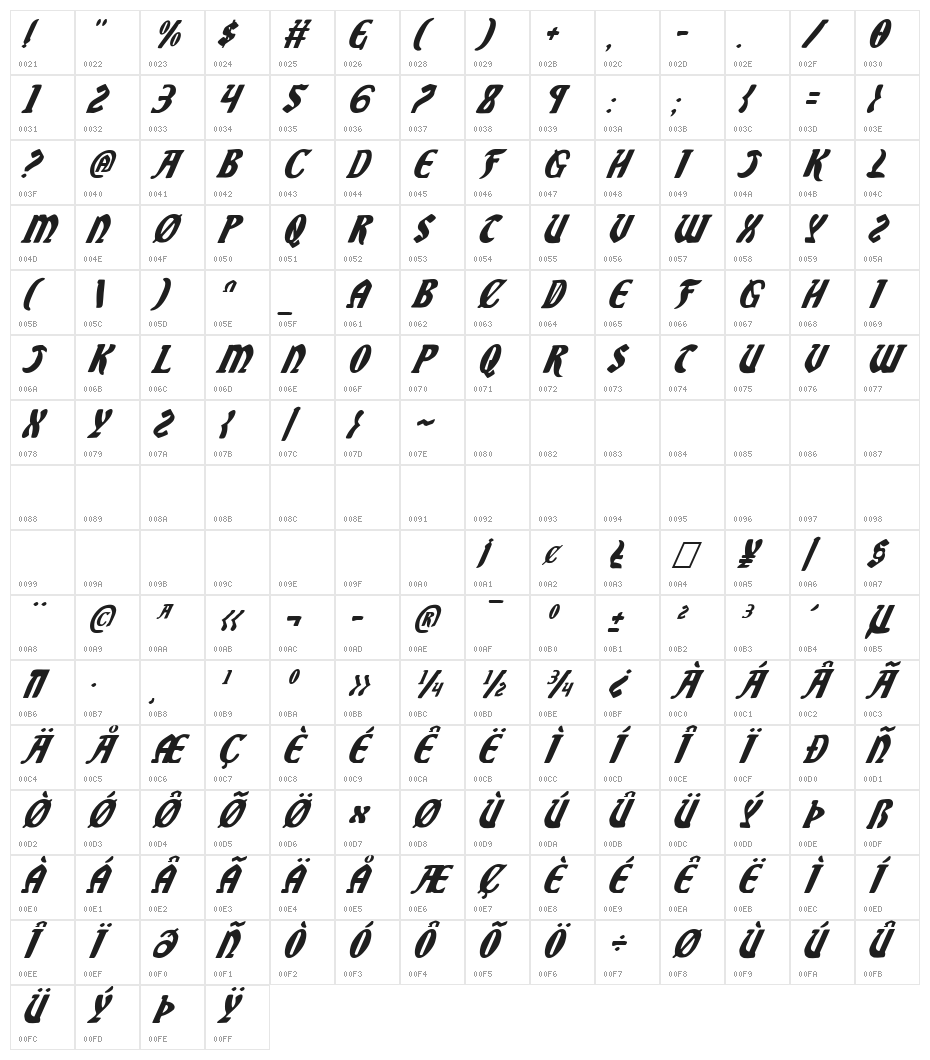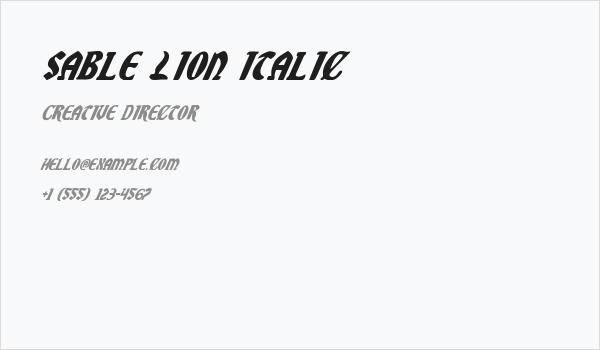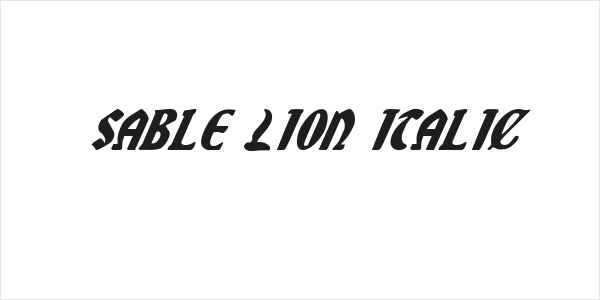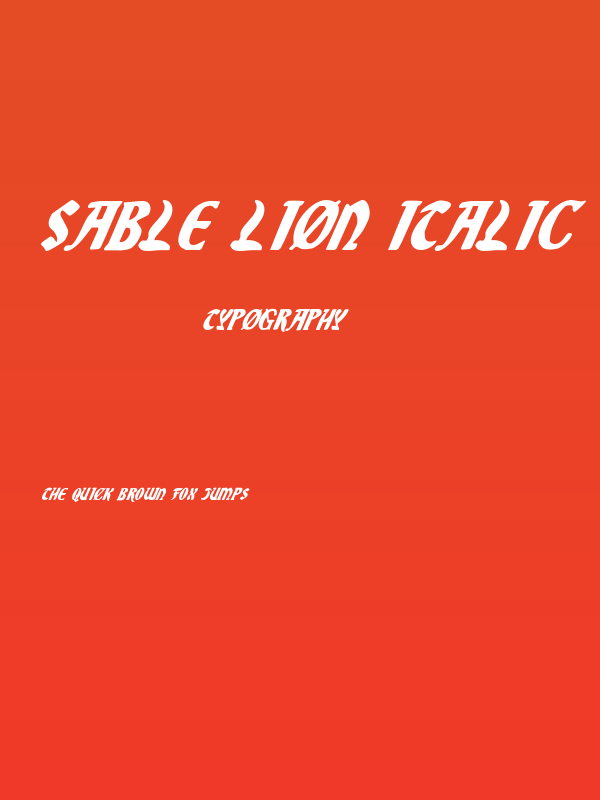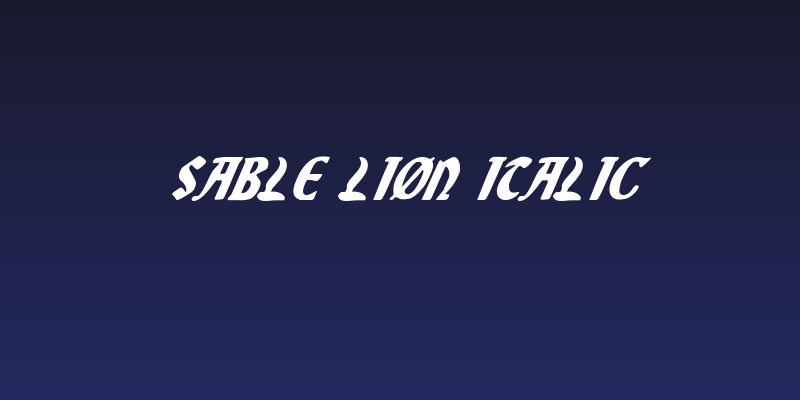
Sable Lion Italic Font
Sable Lion Italic Description
This font exhibits a bold and dynamic style with a strong italic slant, giving it a sense of motion and energy. The characters are thick and robust, with a distinctive flair that makes them stand out. The uppercase and lowercase letters maintain a consistent style, with sharp angles and smooth curves that add to the font's dramatic appearance. The numbers and special characters are equally bold, ensuring uniformity across all text elements. This font's unique design is ideal for making a statement, with its eye-catching and memorable appearance.
| Proposed Projects | Ideal for branding, posters, headlines, and any project requiring a bold statement. |